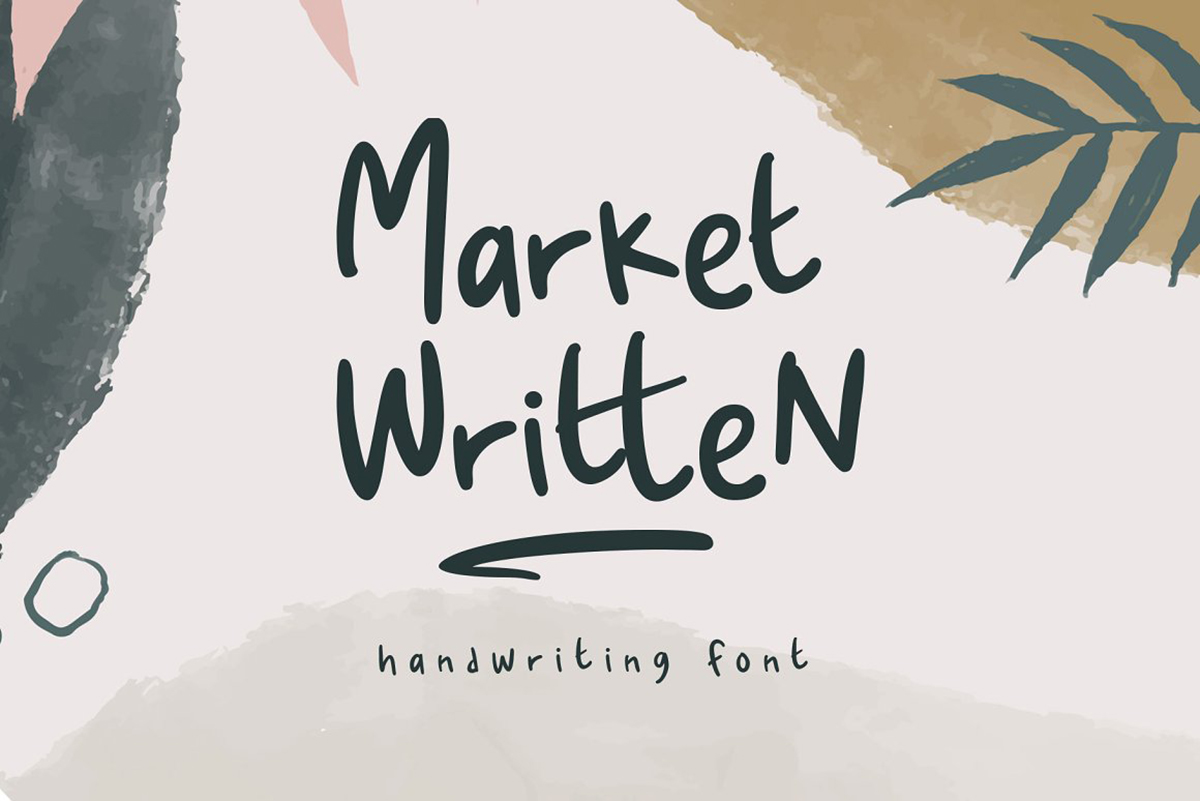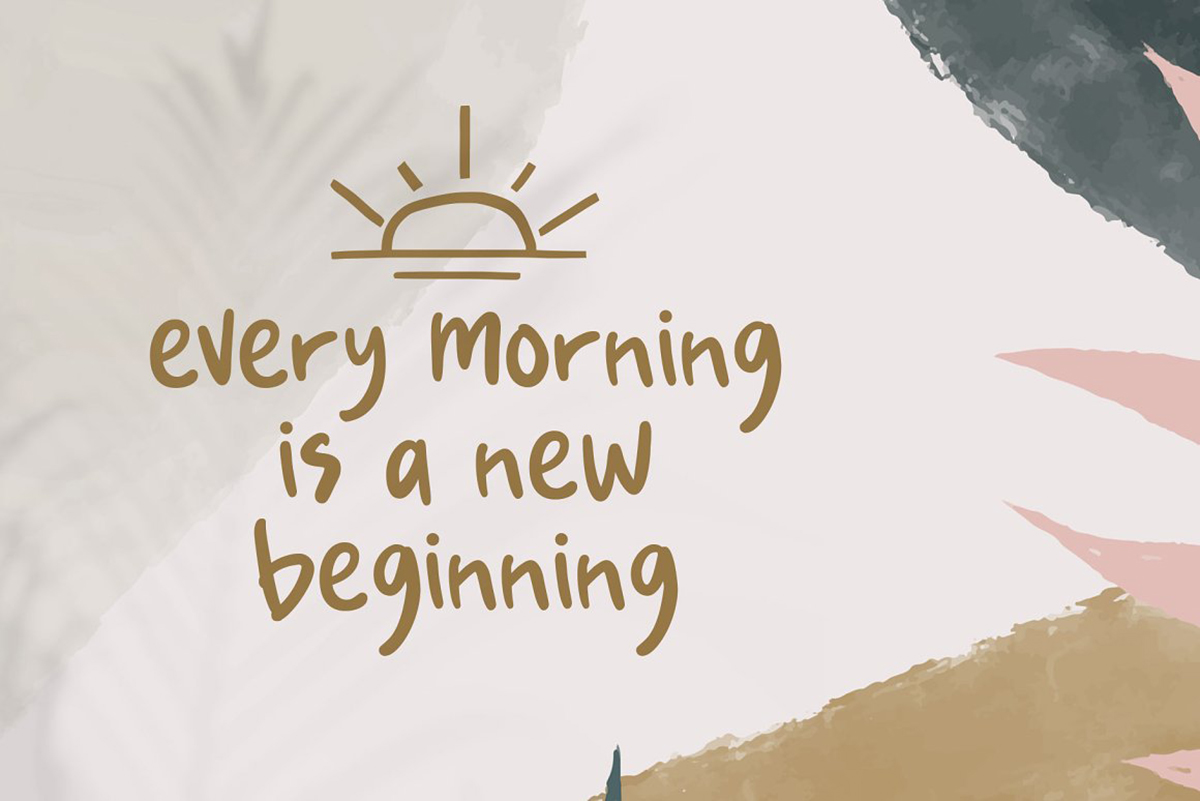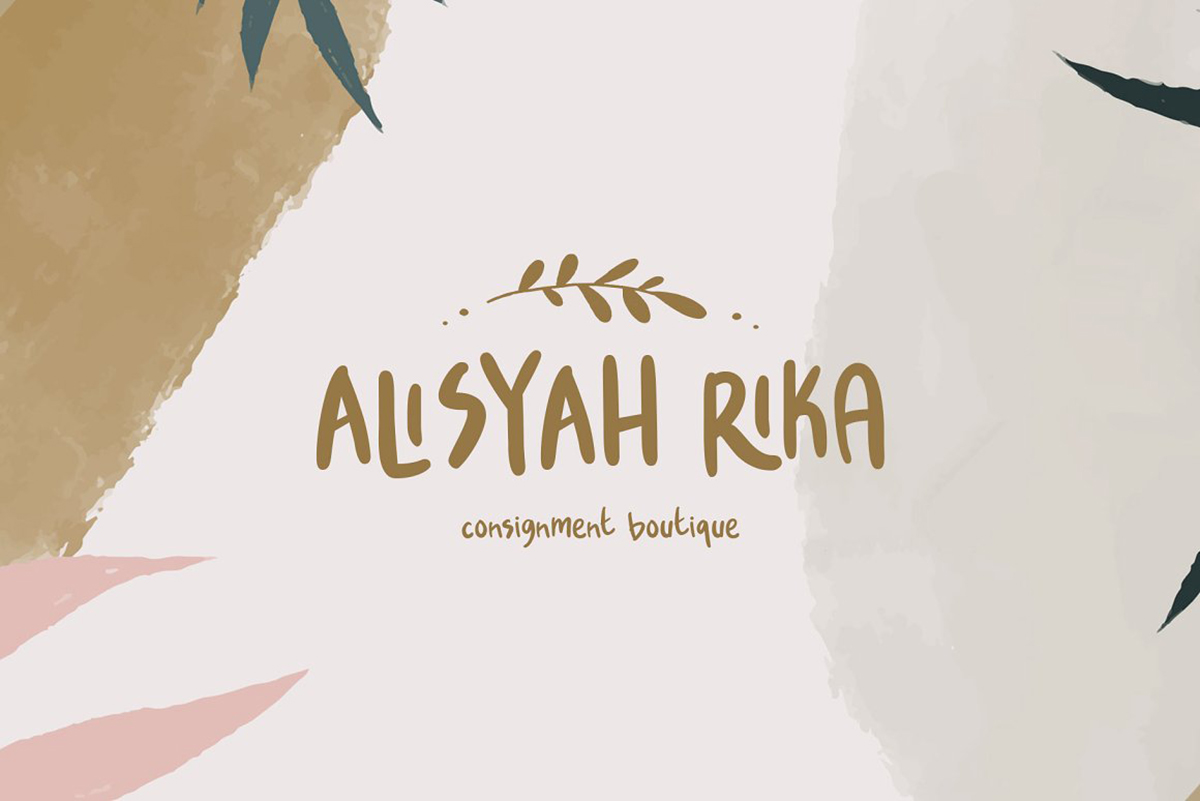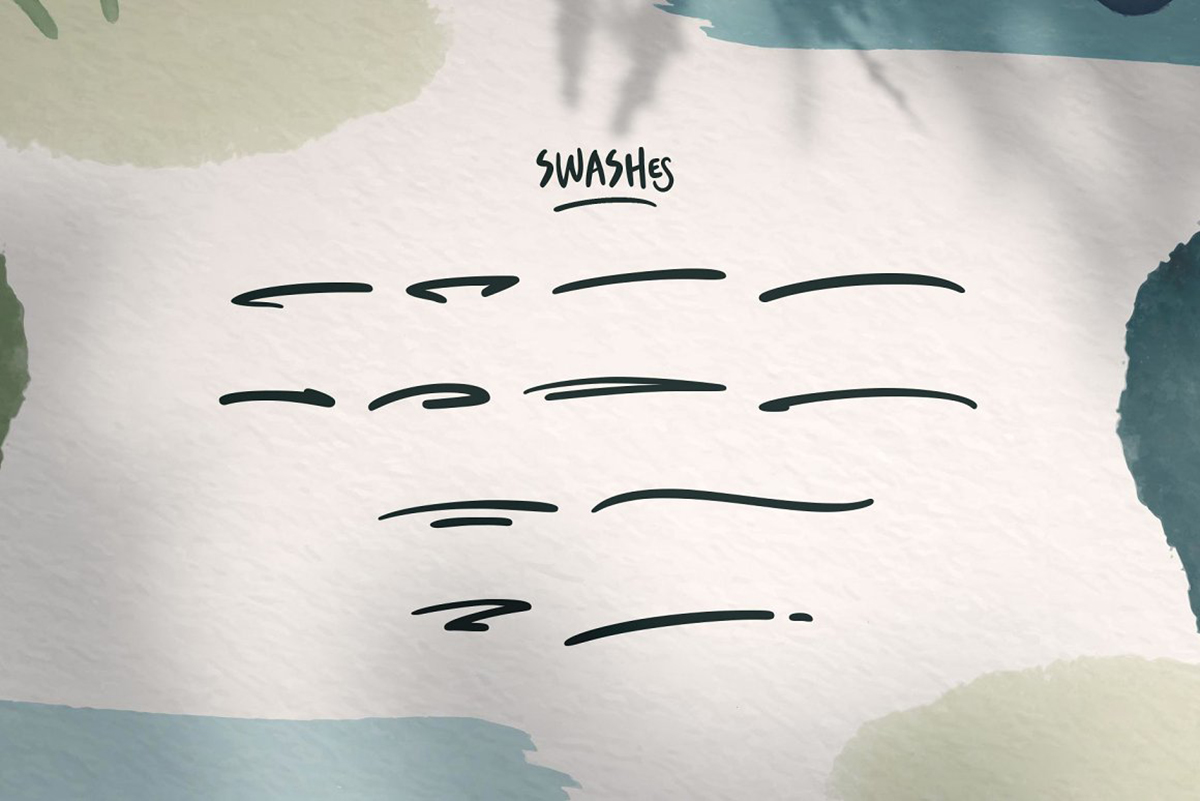
Market Written Free Font
Market Written Free Font is a casual and quirky handwritten font. It works well for various design ideas that require neat and friendly vibes. This free typeface was designed by a talented Arterfak Project. If you like it don’t forget to check out the full version.